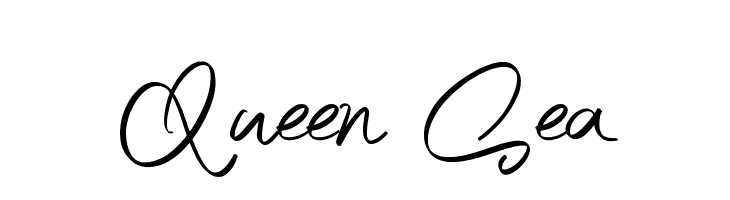
• Azeri Sans Light Italic 字体
A modern, light, and italic sans-serif font with a sleek and elegant design.
• Queen Sea 字体
A lively cursive font with fluid, interconnected characters and varying stroke thickness.
• Aisy Khadijah 字体
An elegant, flowing script font with ornate uppercase and connected lowercase letters.
• MAnimalsK 字体
Decorative font with ancient-style animal illustrations.
• Bigger Book Italic 字体
A bold, italic font with a dynamic and modern style.
• MapofYou-Regular 字体
A dynamic, calligraphic font with bold, sweeping strokes and high contrast.
• Baja 字体
A geometric and modern font with angular edges and a futuristic style.
• ORBIT PERSONAL USE Bold 字体
A bold, distressed font with a rugged, vintage appearance.
• De Flandre 字体
A vintage decorative font with ornate serifs and intricate detailing.
• Funny Pages Condensed 字体
A playful, bold, and condensed font with a whimsical, cartoon-like appearance.
设计师偏爱 Azeri Sans Light Italic, Queen Sea, Aisy Khadijah, MAnimalsK and Bigger Book Italic,因为其造型干净、适用范围广—— 从品牌识别到落地页、海报都能胜任。